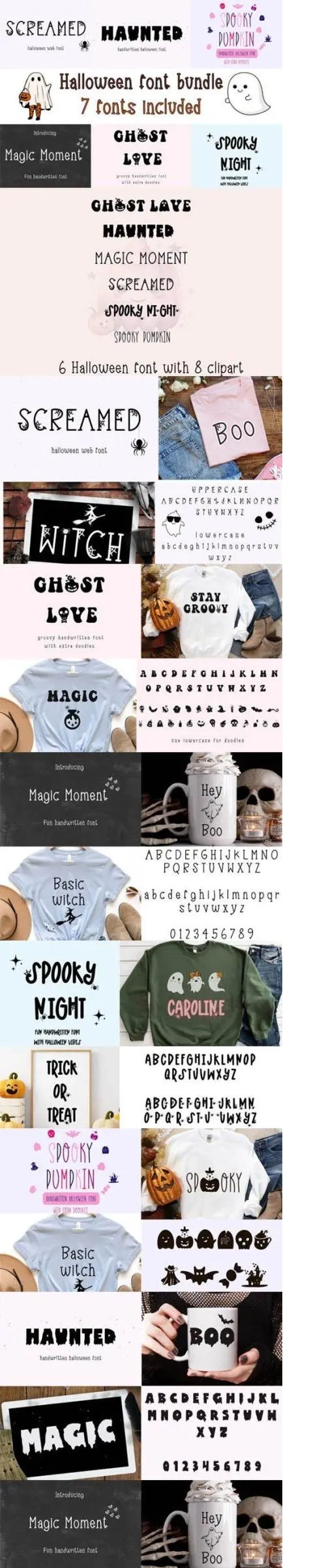
Halloween Bundle Font
Introducing the Halloween Bundle Font, a captivating collection designed to bring a festive spirit to your projects. This font features a variety of playful and spooky styles, perfect for Halloween-themed designs.
• Multiple font styles: Regular, Bold, and Italic
• Unique Halloween-themed characters and glyphs
• Easy to read, making it suitable for both titles and body text
• Weights: Light, Regular, Bold
• Ideal for Halloween invitations, party decorations, and themed merchandise
• Great for branding, logos, and web design projects
• Use in print materials for a fun and festive touch